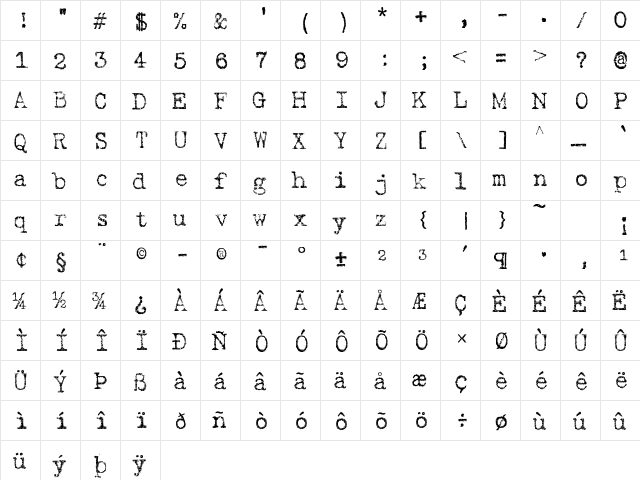
Gabriele Light Ribbon FG Regular
| Foundry | Fontgrube AH |
| Designer | Andreas Hd and Dave Rakowski |
| Copyright | based on D. Rakowski's "Harting" font |
Design Context for Gabriele Light Ribbon FG Typeface
Gabriele Light Ribbon FG takes a measured approach to typography — its balanced proportions and neutral character make it a reliable workhorse for both digital and print work. The delicate stroke weight brings airiness and refinement to layouts.